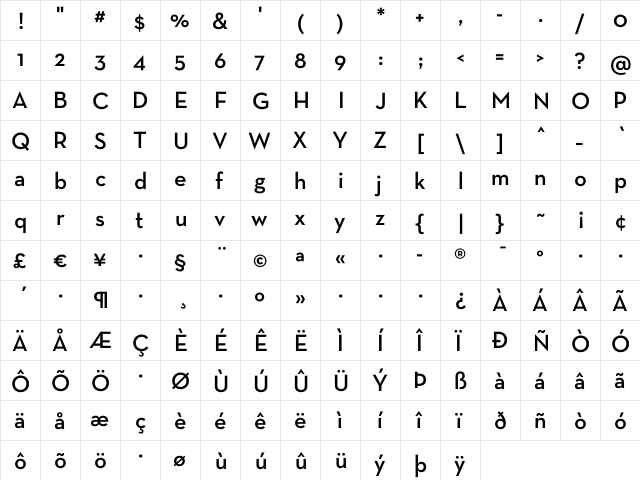
Neutra Text Light Demi
Demi ·  Christian Schwartz ·
Design Context for Neutra Text Light Typeface
Neutra Text Light is a composed and adaptable typeface that performs quietly and consistently across a wide range of design contexts. Its slender proportions lend an understated elegance to any composition.
Pro Tip: Use Neutra Text Light in both headline and body roles to test its range before committing to a single application.